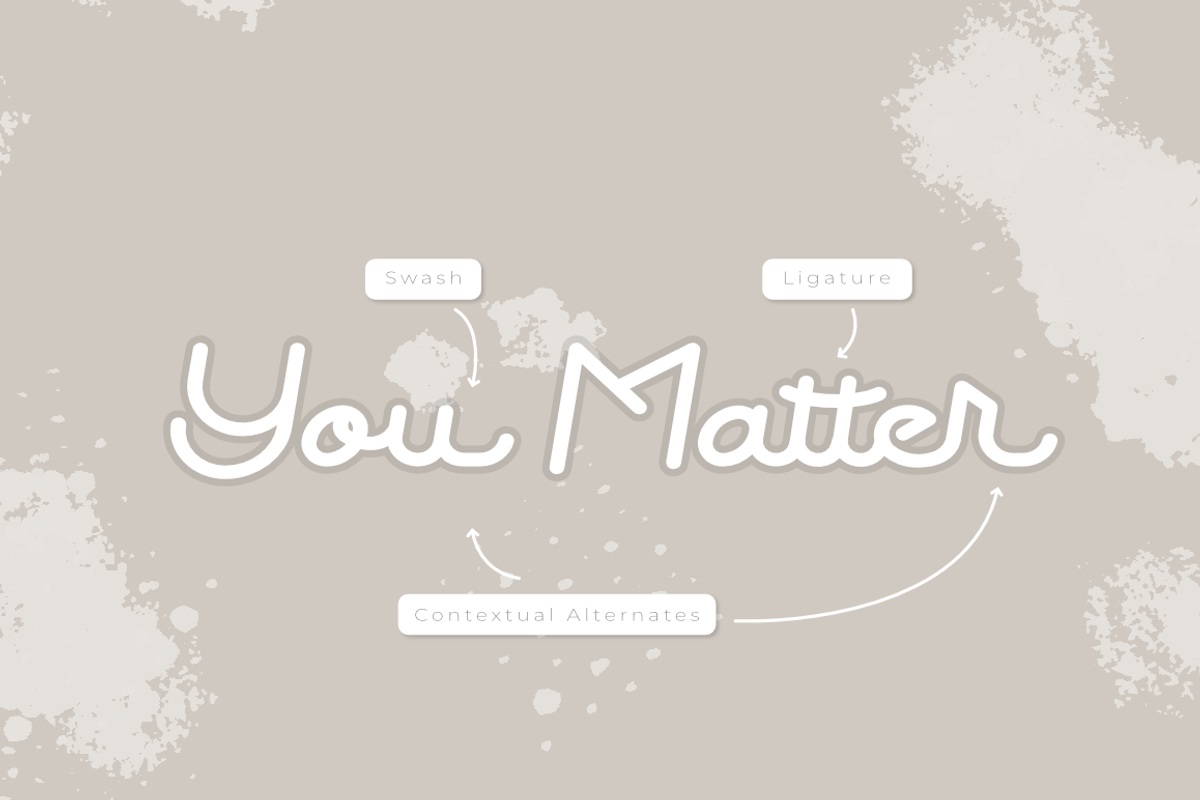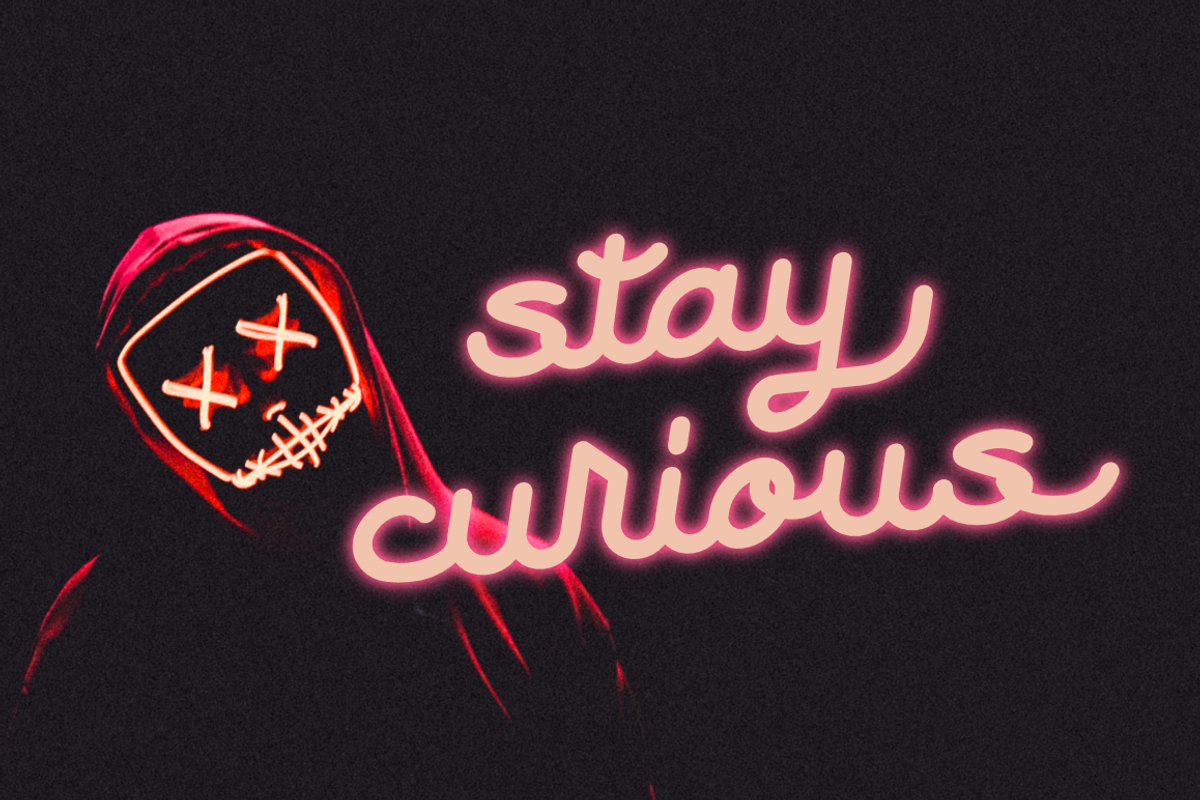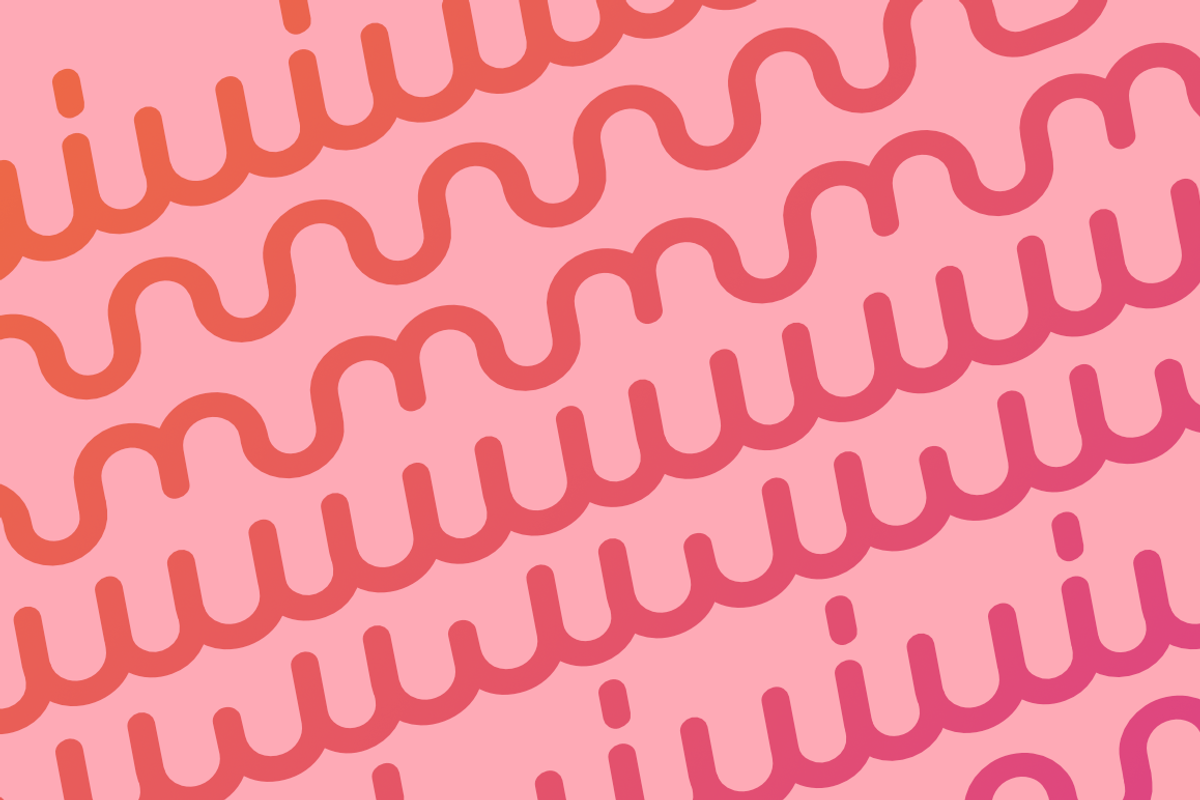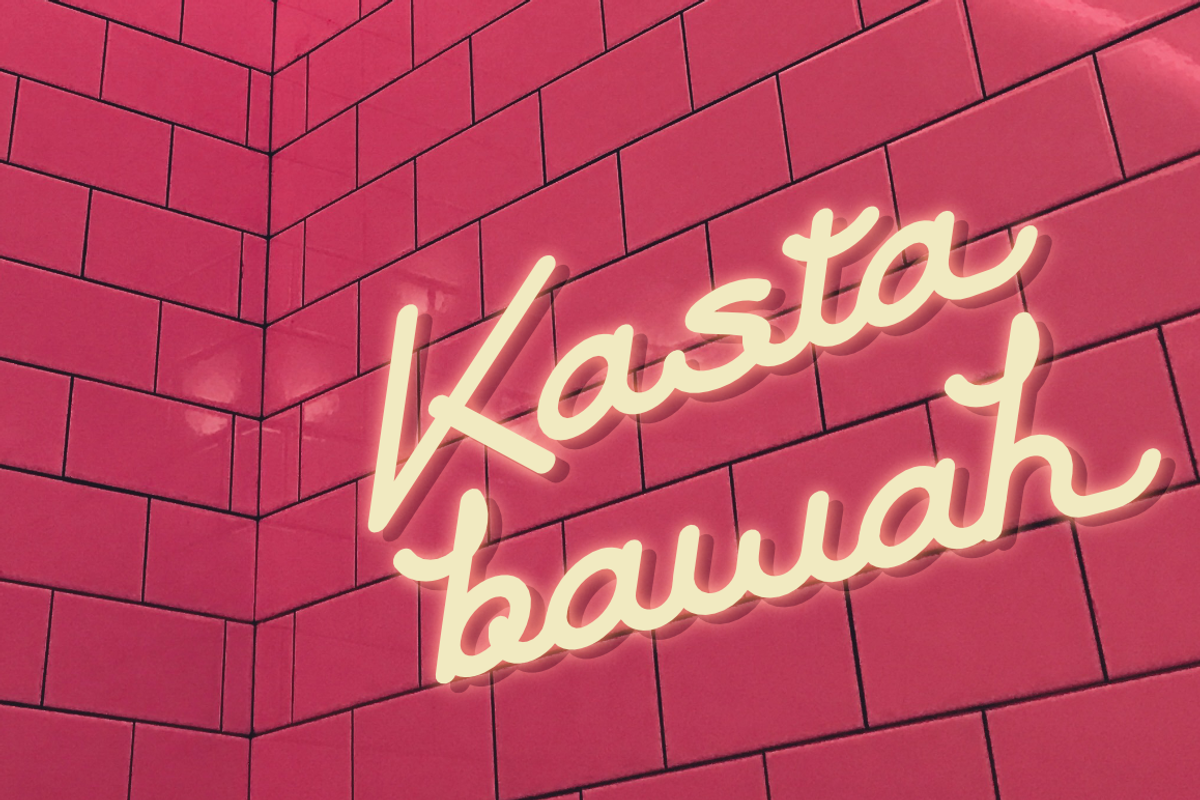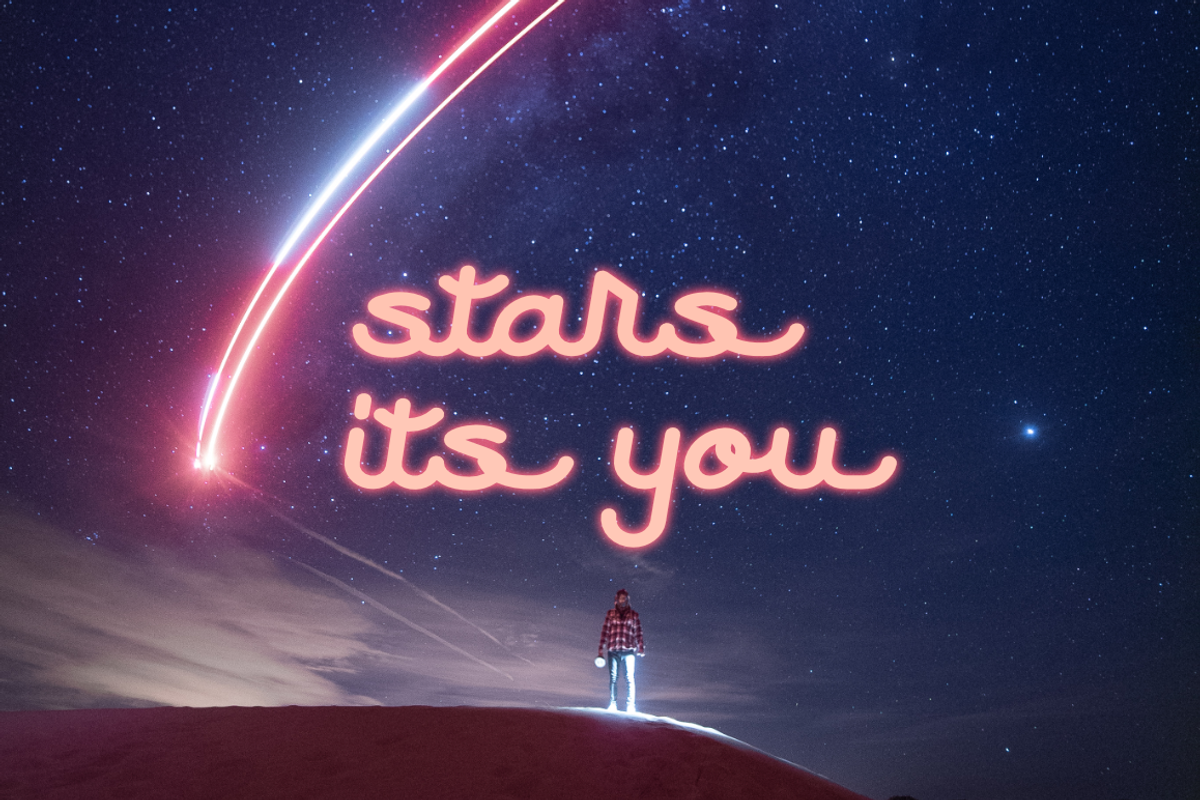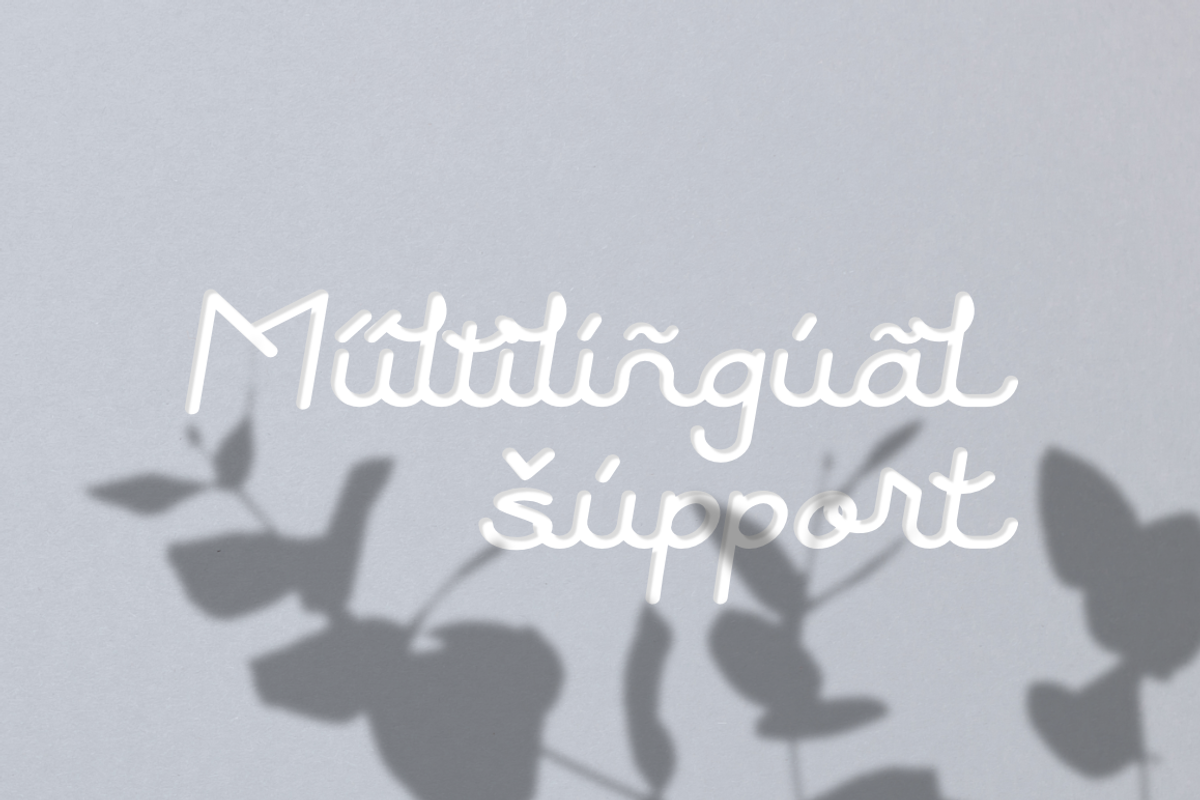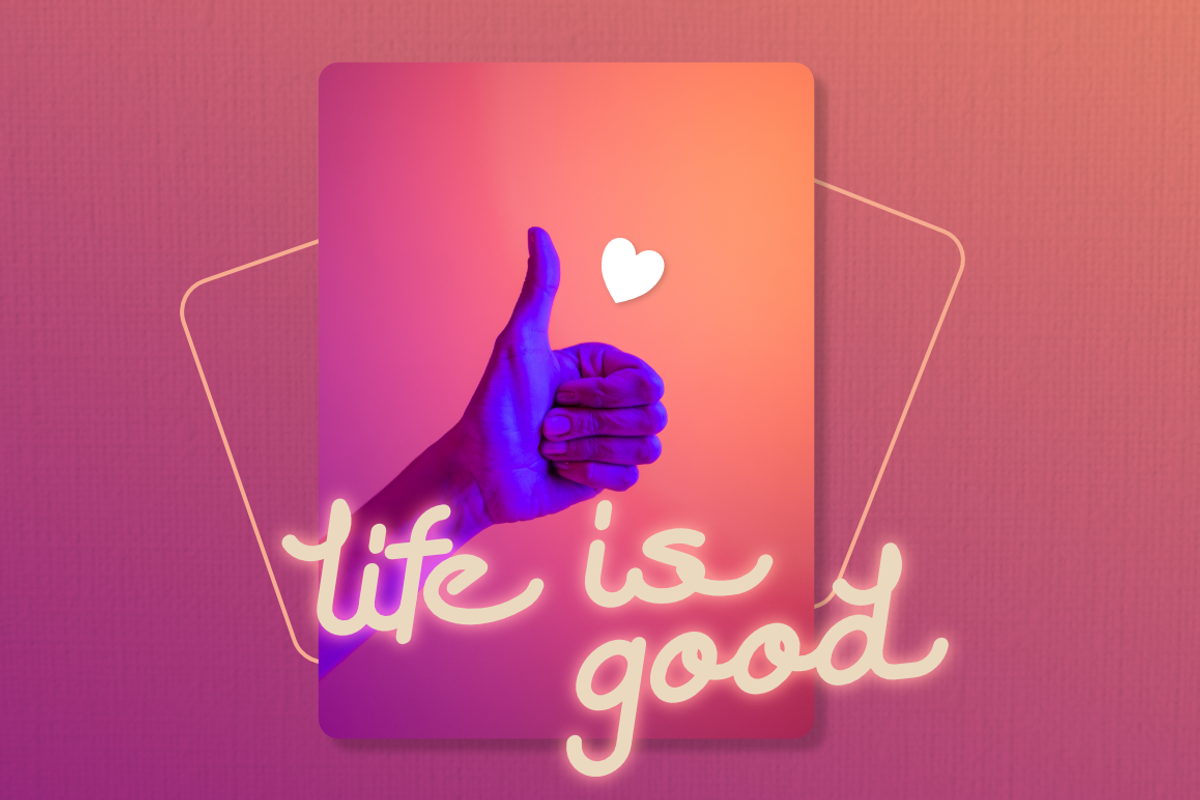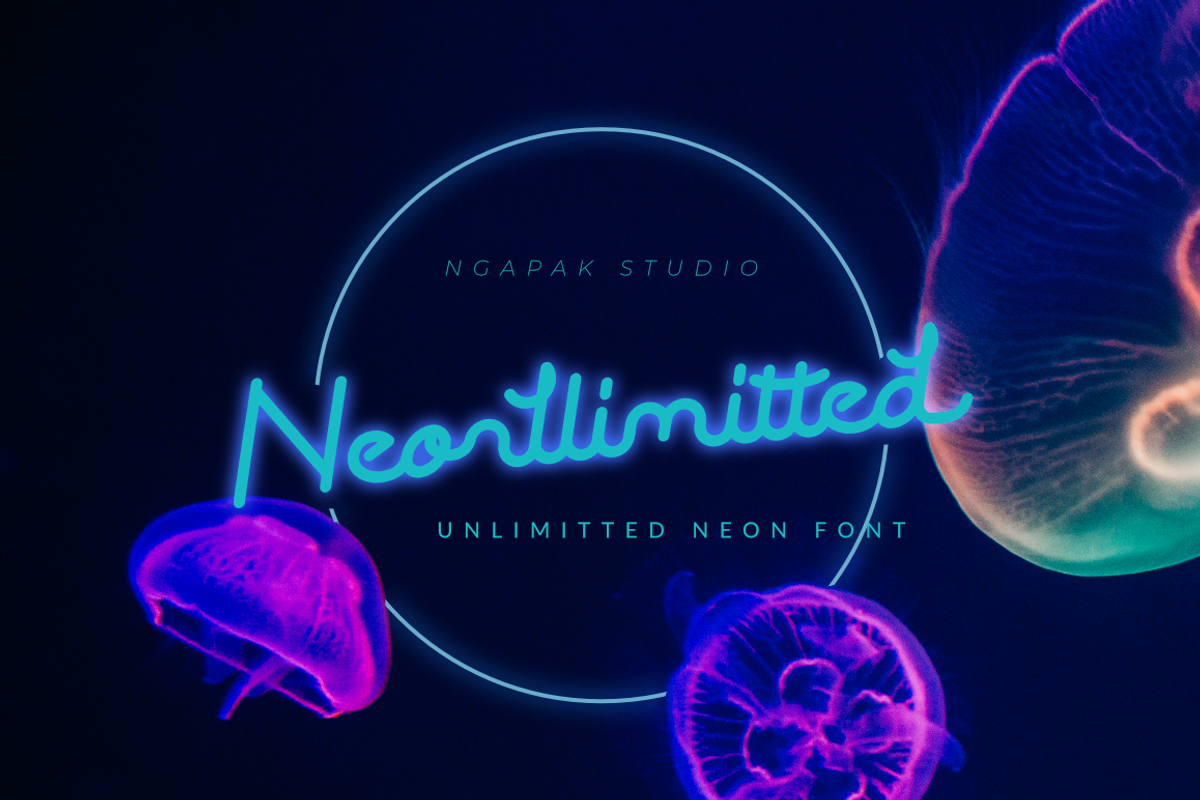
Neonllimitted | Unlimited Neon
Neonllimitted is a modern monoline and handlettering style font that is perfect for logos and neon lights for shops.
Neonllimitted is perfect for branding projects, wedding, wedding invitation, logo, social media posts, advertisements, product packaging, product designs, label, photography, watermark, invitation, stationery and any projects that need handlettering monoline typeface taste.
- Contextual Alternate
- Fonts include multilingual support for; Afrikaans, Albanian, Asu, Basque, Bemba, Bena, Breton, Catalan, Chiga, Colognian, Cornish, Danish, Dutch, English, Faroese, Filipino, French, Friulian, Galician, German, Gusii, Hungarian, Indonesian, Irish, Italian, Kabuverdianu, Kalenjin, Kinyarwanda, Luo, Luxembourgish, Luyia, Machame, Makhuwa-Meetto, Makonde, Malagasy, Manx, Morisyen, North Ndebele, Norwegian Bokmål, Norwegian Nynorsk, Nyankole, Oromo, Polish, Portuguese, Quechua, Romansh, Rombo, Rundi, Rwa, Samburu, Sango, Sangu, Scottish Gaelic, Sena, Shambala, Shona, Soga, Somali, Spanish, Swahili, Swedish, Swiss German, Taita, Teso, Turkish, Uzbek (Latin), Volapük, Vunjo, Welsh, Western Frisian, Zulu.